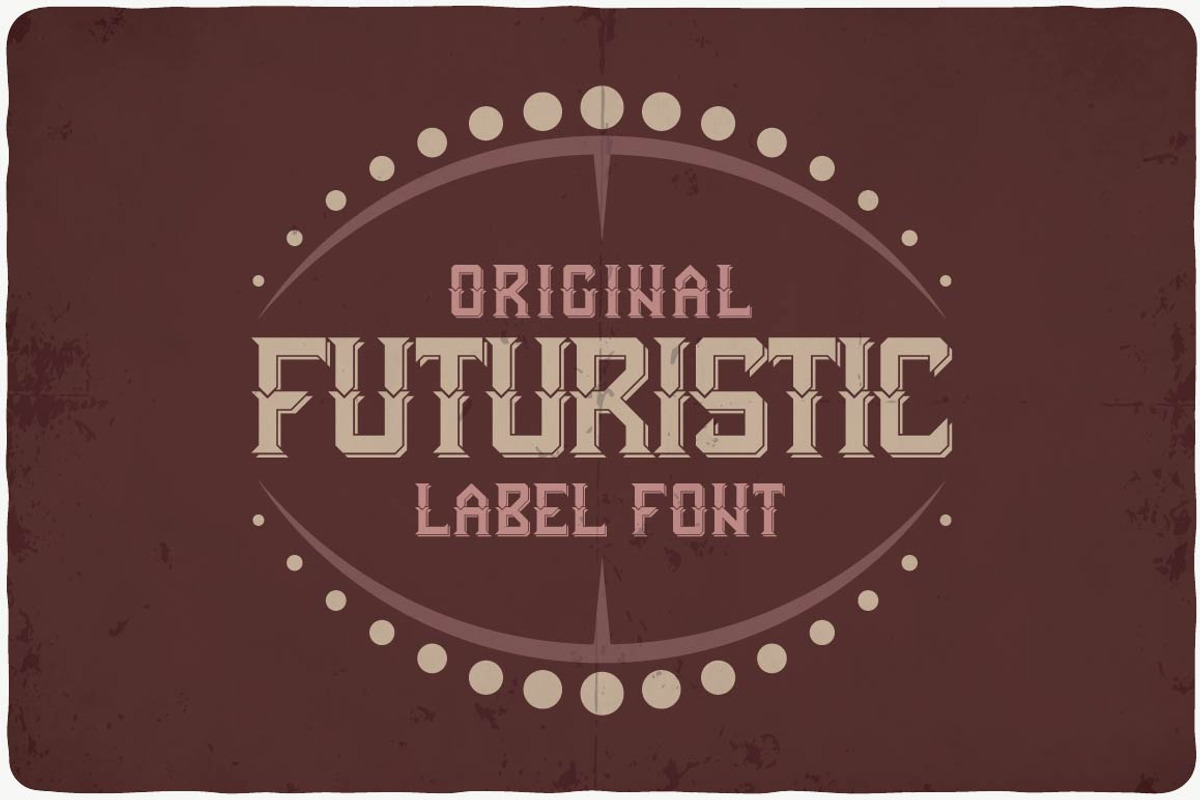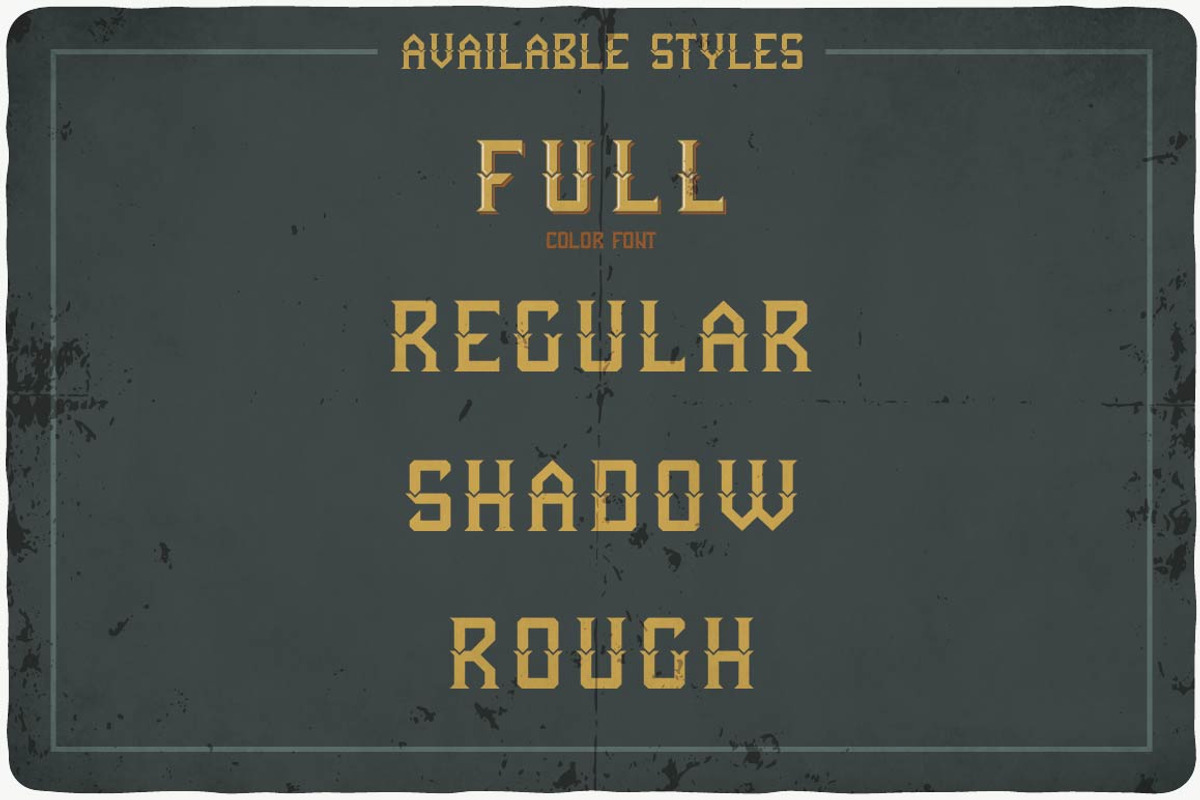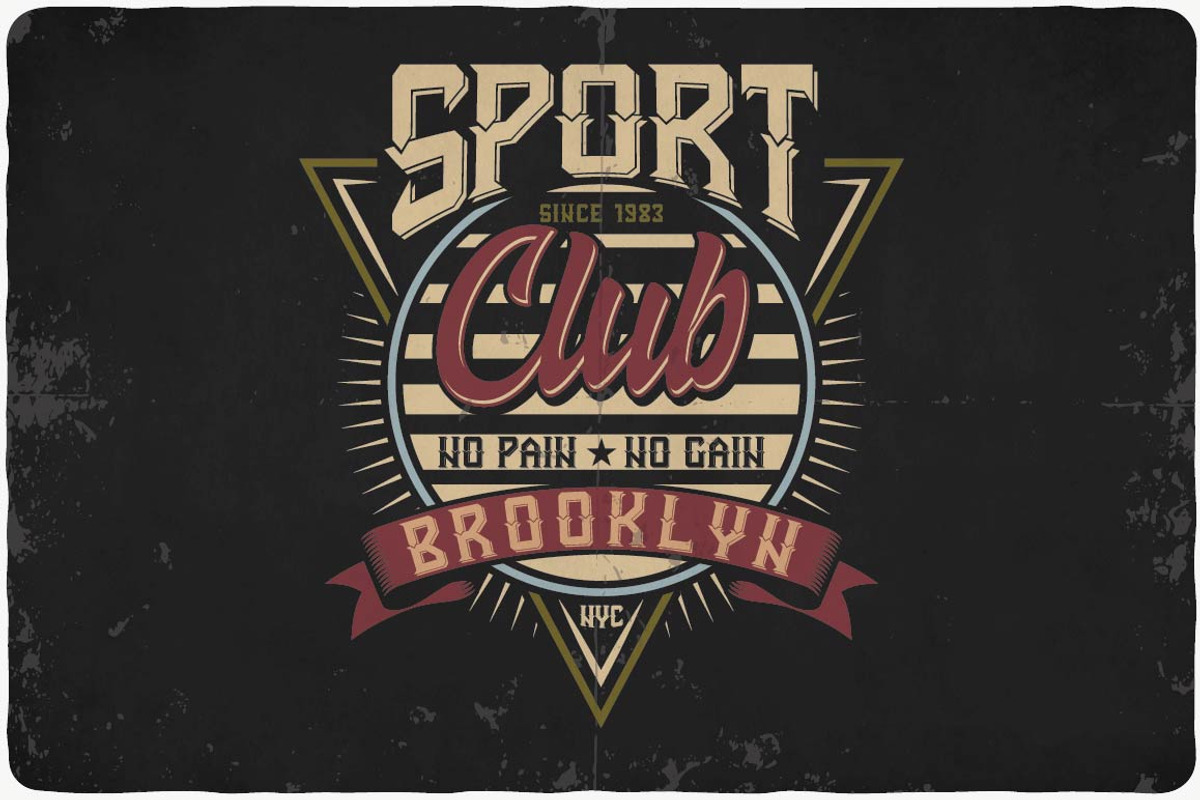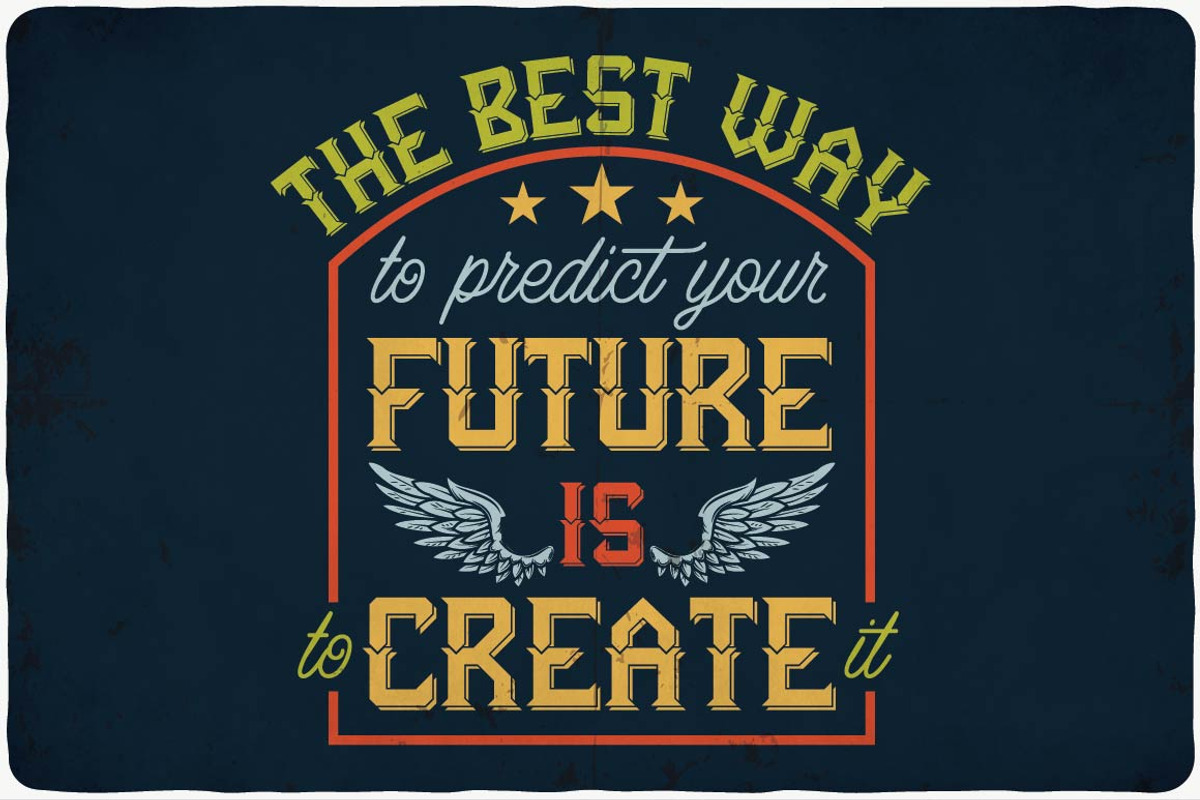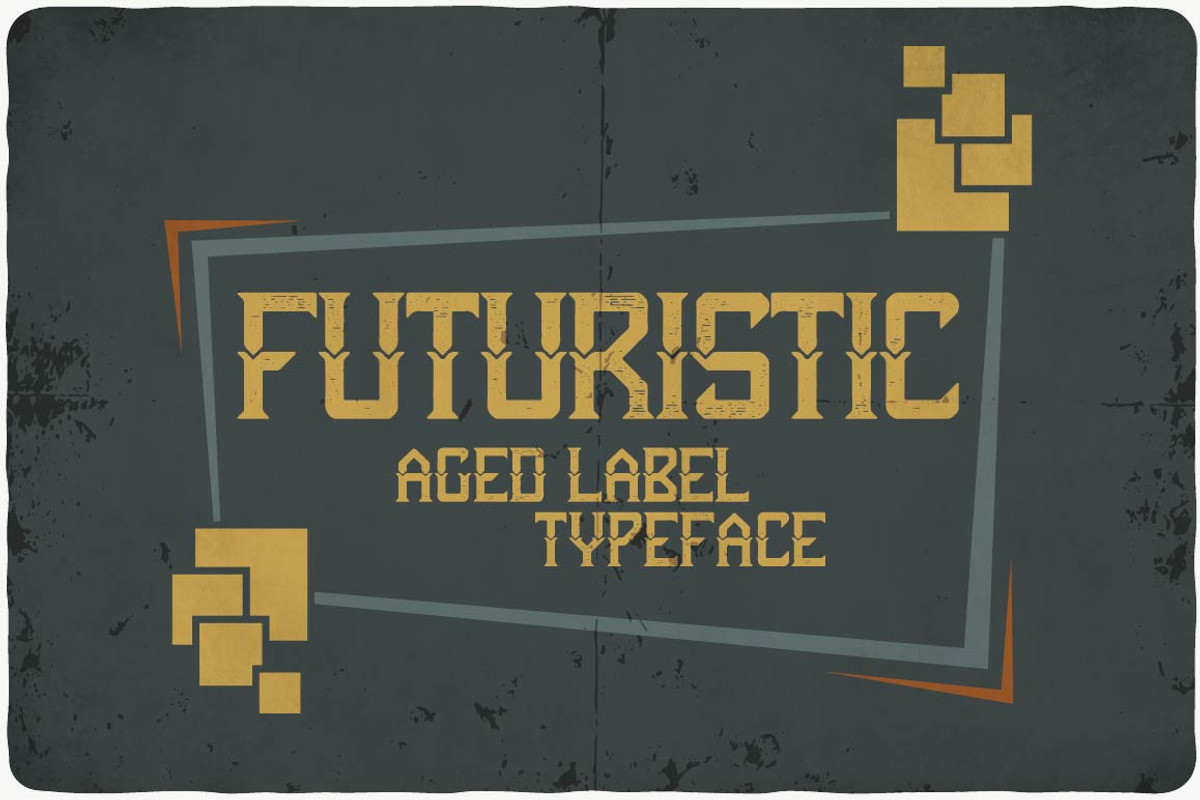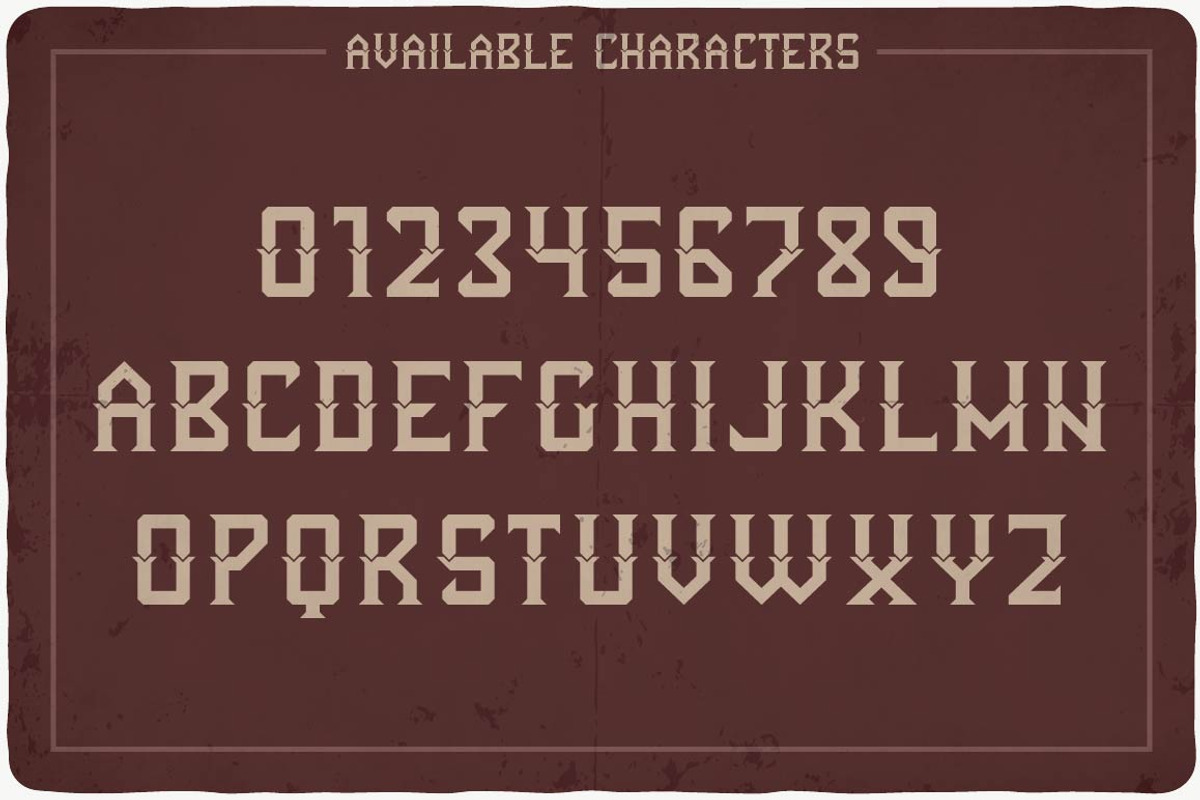
Futuristic typeface
Introducing a vintage look label typeface named "Futuristic". This typeface includes four styles, for sample look at 5th preview. Typeface will good viewed on any yours design.
- This typeface includes four styles, for sample look at 5th preview.
Futuristic typeface by VozzyStock fits naturally into Branding, posters, packaging, typography.